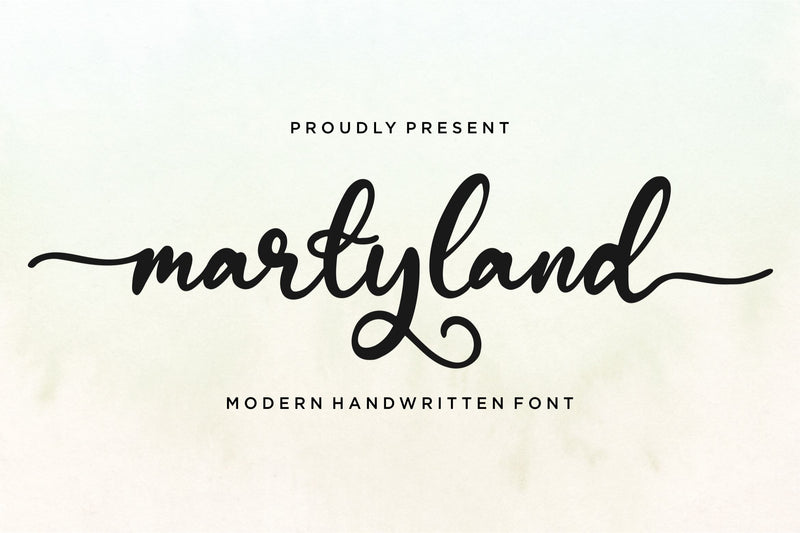
Marlyland
Introducing by Qwrtype
Proudly Present, Marlyland
Marlyland is a Modern Handwritten Font
Marlyland is perfect for product packaging, branding project, megazine, social media, wedding, or just used to express words above the background.